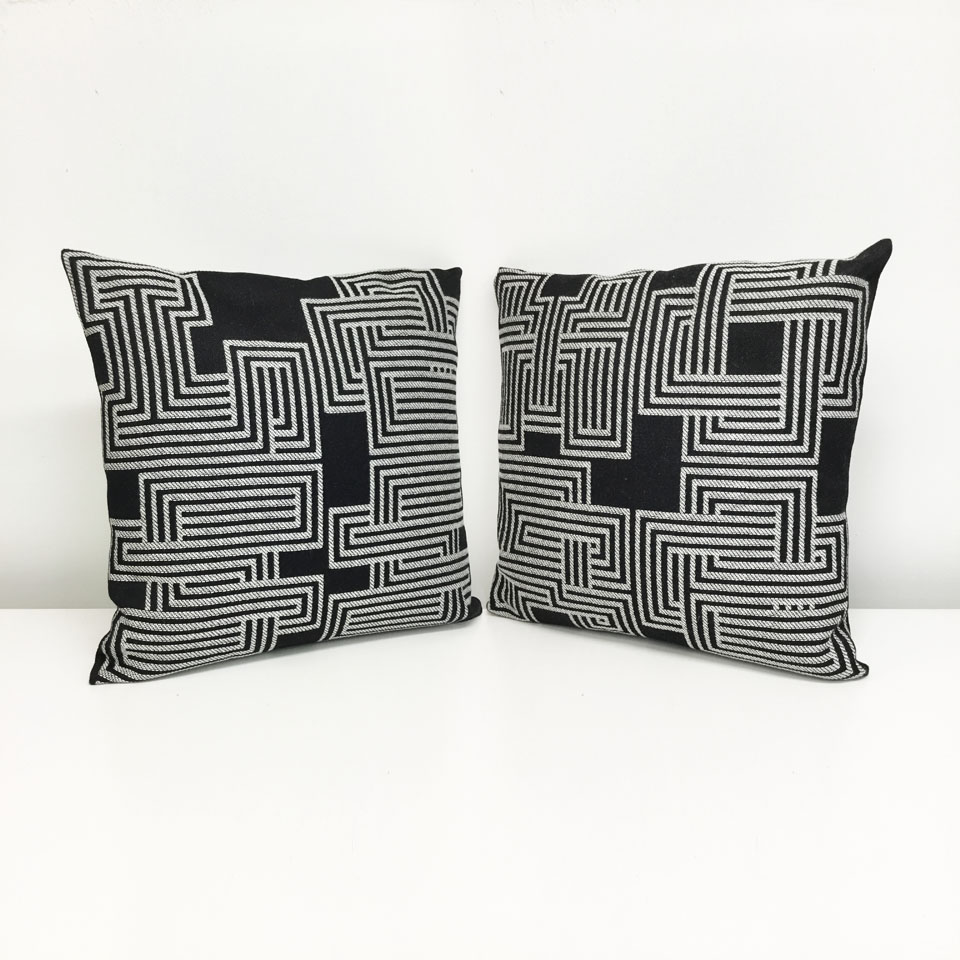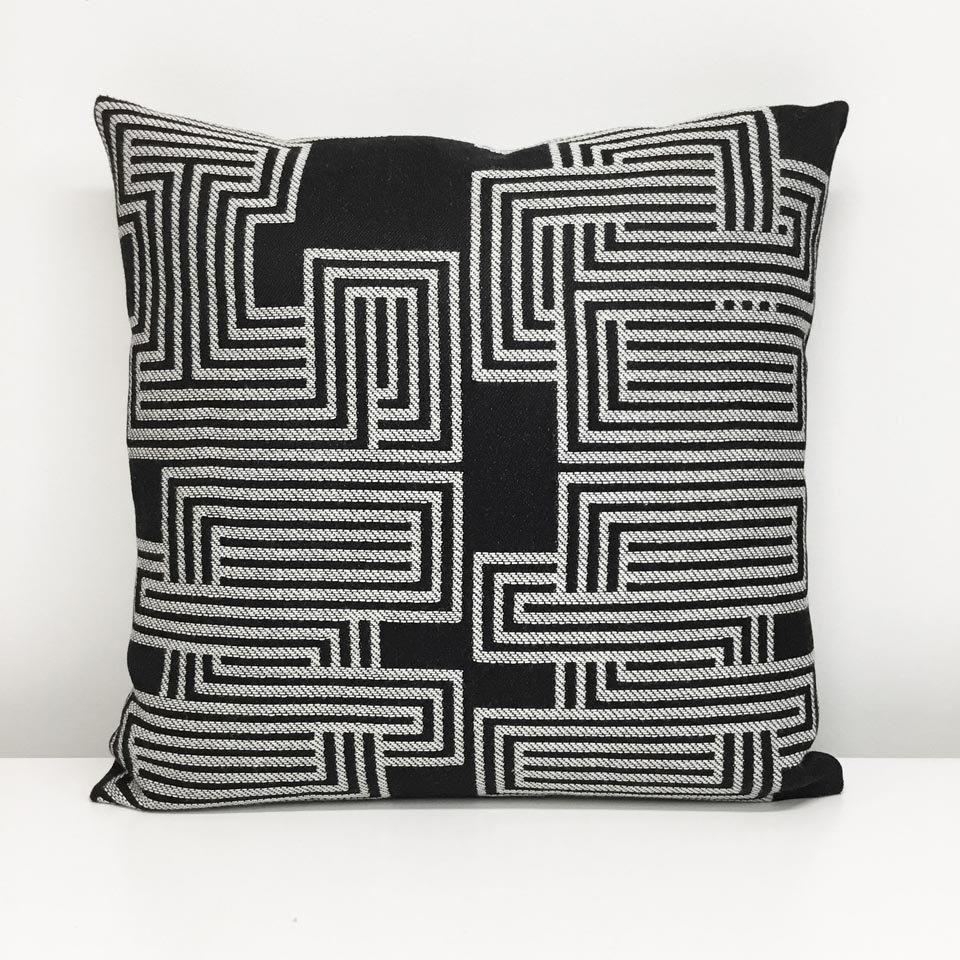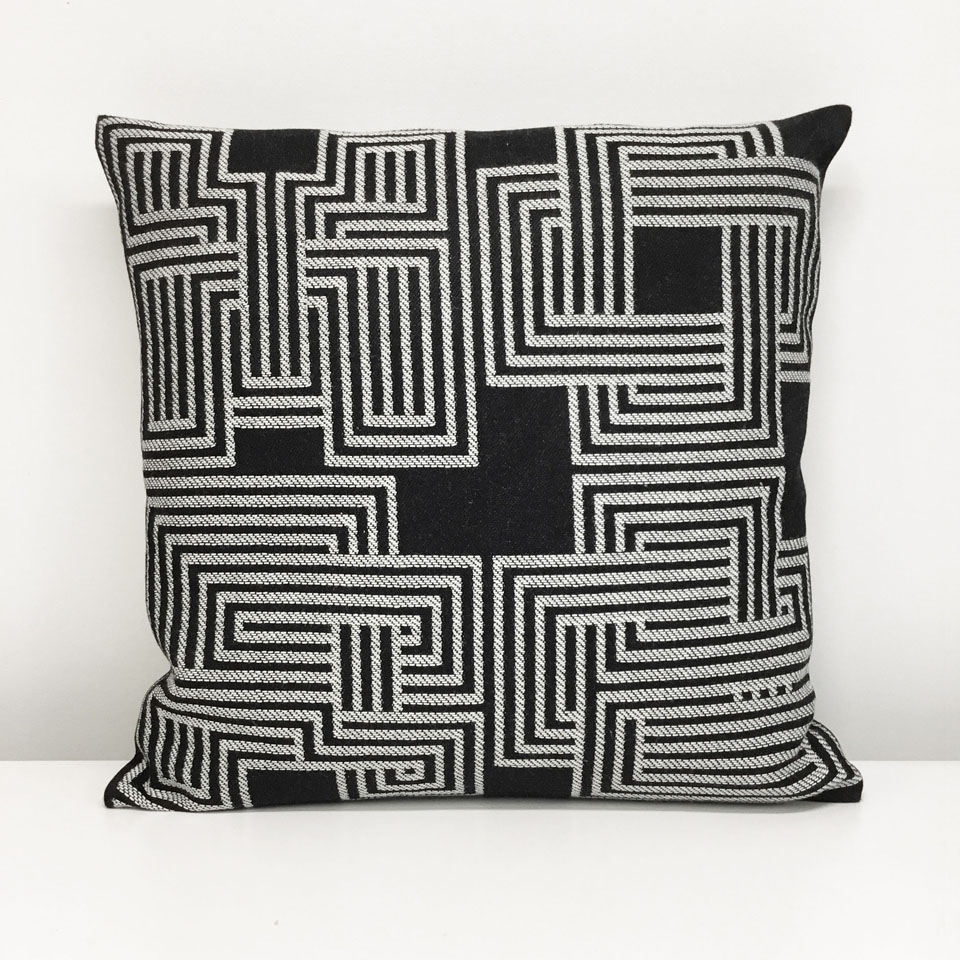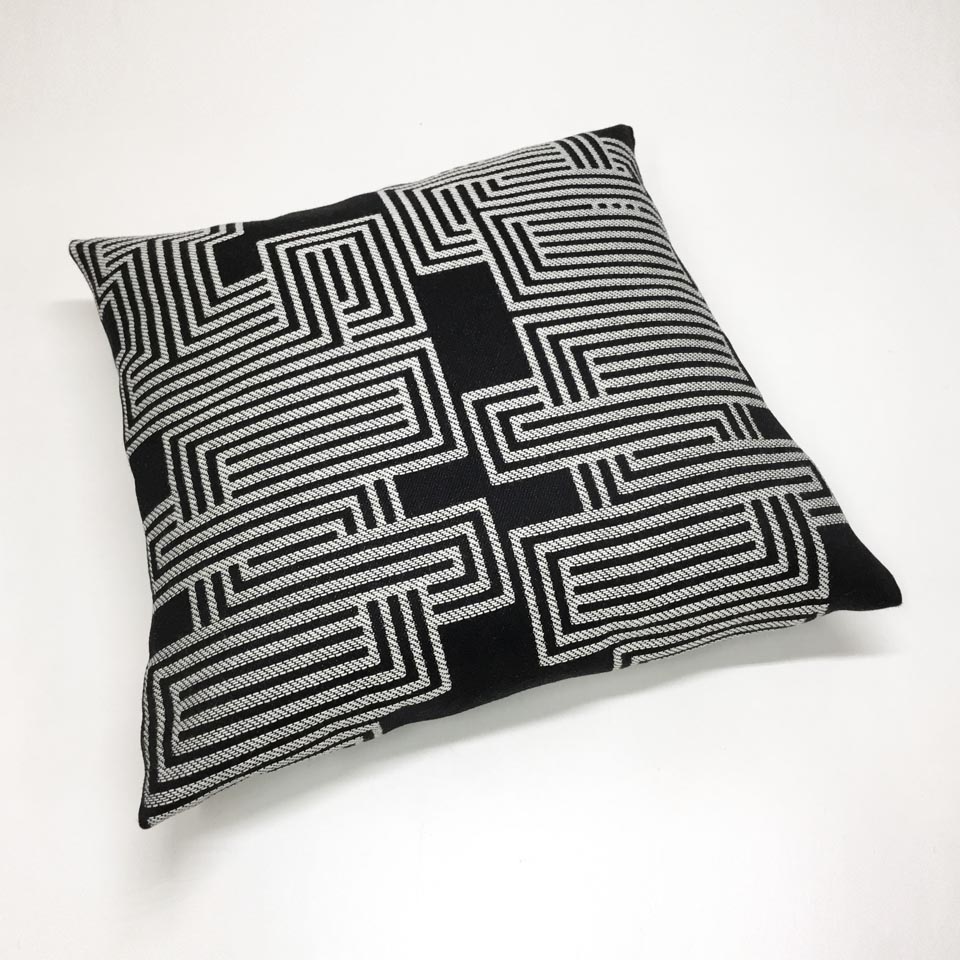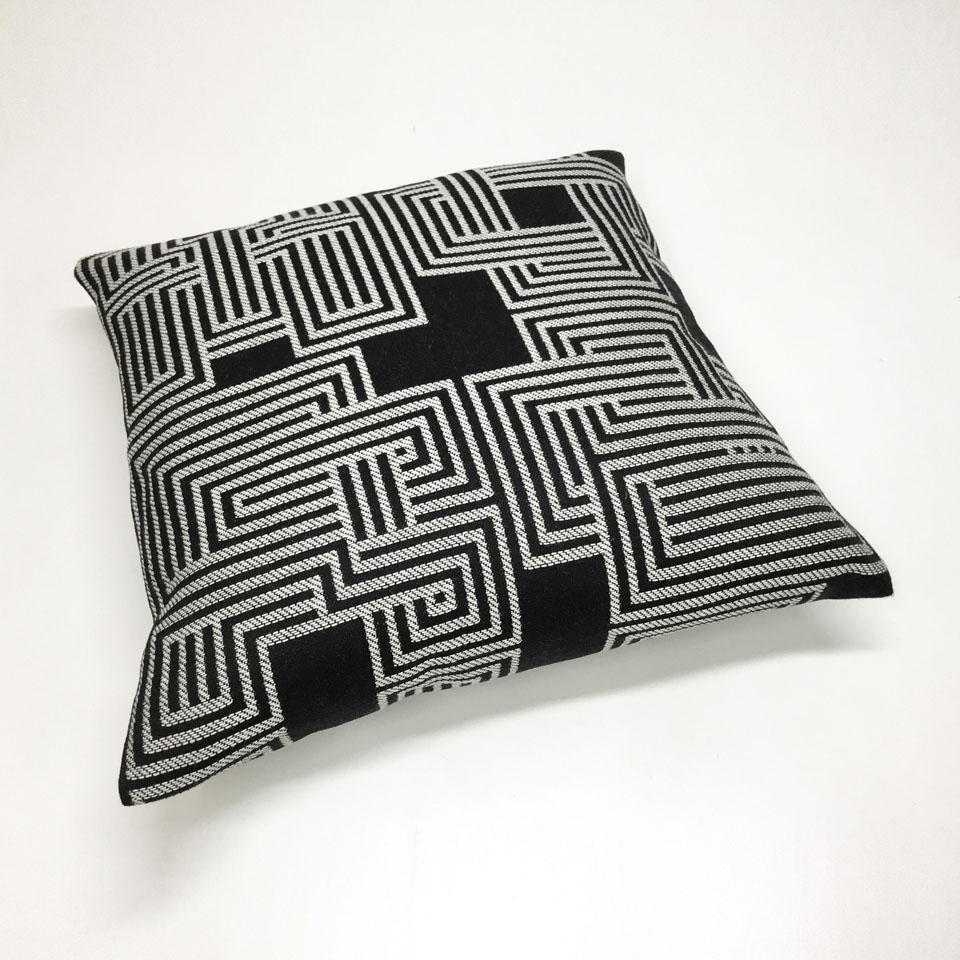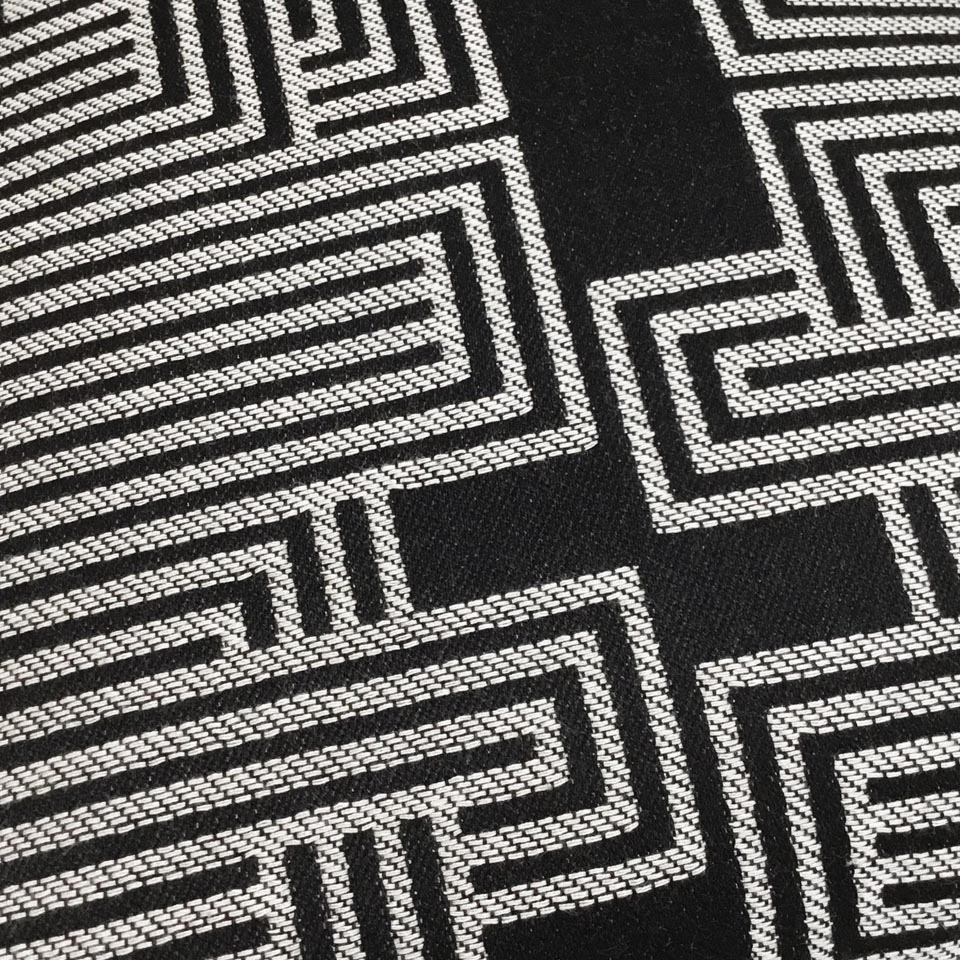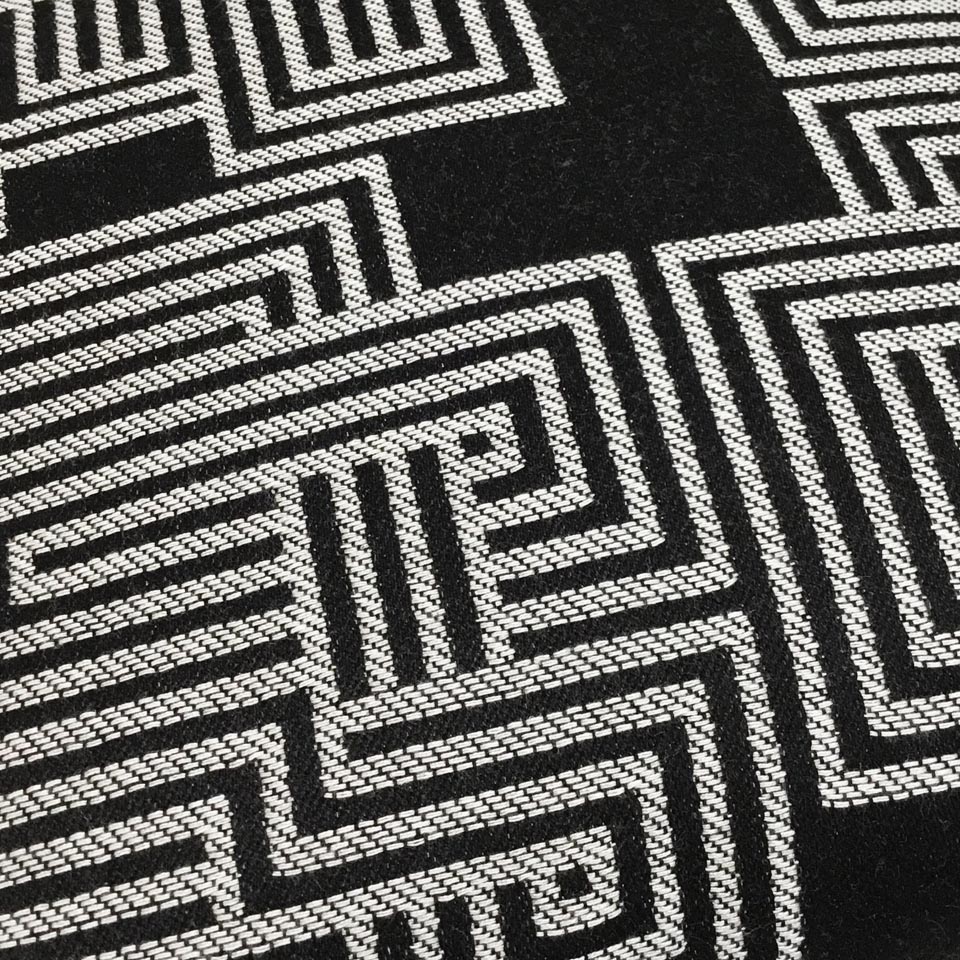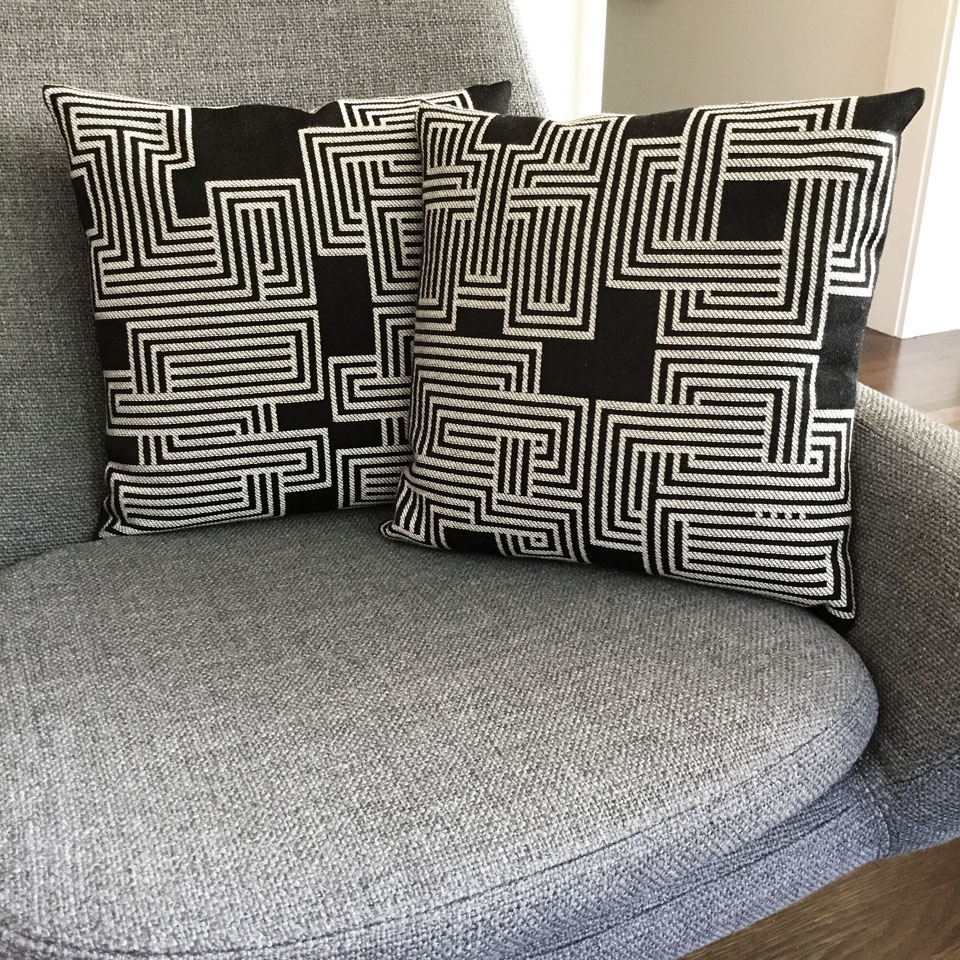
“LESS” and “MORE” Pillow Set
A pair of companion pillows featuring the four letter words "LESS" and "MORE", composed from lines and outlines that intertwine. Custom woven on a jacquard loom.